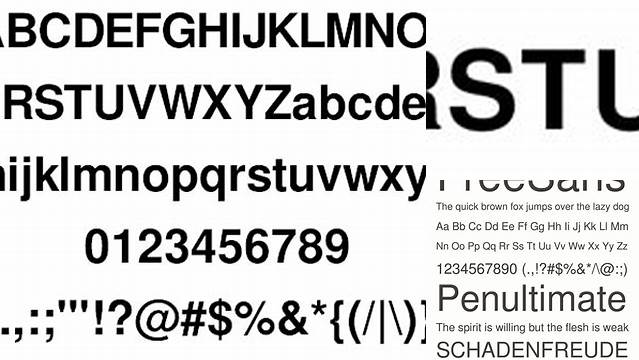
FreeSans Bold Font: Download & Use Guide
Are you looking for a versatile and legible font? Look no further! The FreeSans Bold font is a popular choice for various design projects, offering a clean and modern aesthetic. In this comprehensive guide, we'll walk you through everything you need to know about FreeSans Bold, from downloading it safely to using it effectively in your projects. So, let’s dive in!
What is FreeSans Bold?
FreeSans is a sans-serif typeface designed as part of the GNU FreeFont project. It's intended to be a free and open-source alternative to proprietary fonts like Arial. The Bold variant provides a heavier weight, making it ideal for headlines, titles, and emphasizing important text. Its clear and simple design ensures readability across different media, whether it's printed materials, web pages, or mobile applications. The FreeSans Bold font is characterized by its uniform strokes and unadorned appearance, making it a versatile choice for a wide range of design applications. Its neutral design ensures that it doesn't distract from the content, but rather enhances it. It is particularly useful in technical documentation, user interfaces, and any situation where clarity and legibility are paramount. FreeSans Bold is part of a larger family of fonts that include regular, italic, and bold italic variations, offering designers a complete toolkit for typographic consistency. The font is also designed to support a wide range of characters and symbols, making it suitable for multilingual projects. The GNU FreeFont project aims to provide a comprehensive set of free fonts that meet the needs of a global user base, and FreeSans Bold is a key component of this initiative. By choosing FreeSans Bold, designers and developers can ensure that their projects are not only visually appealing but also compliant with open-source principles.
Why Use FreeSans Bold?
Why should you consider using FreeSans Bold for your next project? There are several compelling reasons. First and foremost, it's free! Being an open-source font, you can use it without worrying about licensing fees, making it an excellent choice for both personal and commercial projects. Secondly, its legibility is outstanding. The clean, sans-serif design ensures that text remains readable even at smaller sizes, making it perfect for body text, captions, and labels. Thirdly, FreeSans Bold offers versatility. It works well in a variety of contexts, from print to digital, and complements a wide range of design styles. Its neutral appearance means it won't clash with other design elements, allowing you to maintain a consistent and professional look. Moreover, FreeSans Bold is part of a larger font family, including regular, italic, and bold italic versions, giving you plenty of options for creating typographic hierarchy. This is particularly useful for documents, websites, and presentations where you need to differentiate between headings, subheadings, and body text. Additionally, FreeSans Bold supports a wide range of characters and symbols, making it suitable for multilingual projects. This is a significant advantage for designers and developers working on international projects, ensuring that their text is displayed correctly across different languages. Finally, by using FreeSans Bold, you are supporting the open-source community. The GNU FreeFont project relies on contributions from developers and designers around the world, and by using their fonts, you are helping to promote the development of free and open-source software. So, if you're looking for a free, legible, and versatile font that supports open-source principles, FreeSans Bold is an excellent choice.
Using FreeSans Bold in Design Projects
Once you've successfully installed FreeSans Bold, it's time to put it to work! This versatile font can enhance a wide range of design projects. In graphic design, FreeSans Bold is excellent for headlines, posters, and logos where you need a strong and legible typeface. Its clean lines and bold weight make it stand out, ensuring that your message is clear and impactful. In web design, FreeSans Bold is a great choice for headings, navigation menus, and call-to-action buttons. Its readability ensures that visitors can easily navigate your website and understand your content. In print design, FreeSans Bold is perfect for brochures, flyers, and business cards. Its versatility means it can be used for both body text and headings, providing a consistent and professional look. When using FreeSans Bold, consider its weight and spacing to optimize readability. Adjusting the letter spacing and line height can significantly improve the overall appearance of your text. Experiment with different font sizes and weights to create visual hierarchy and emphasize important information. Pair FreeSans Bold with other fonts to create contrast and visual interest. A good combination is to use FreeSans Bold for headings and a lighter serif font for body text. This creates a balanced and easy-to-read design. Remember to consider the overall style and tone of your project when using FreeSans Bold. While it's a versatile font, it may not be suitable for every design. For example, it may not be the best choice for projects that require a more elegant or decorative typeface. By experimenting with different applications and styles, you can discover the full potential of FreeSans Bold and create visually appealing and effective designs. Always ensure that your designs are accessible and easy to read for all users. This includes considering factors like color contrast and font size to ensure that your text is legible for people with visual impairments.
Alternatives to FreeSans Bold
While FreeSans Bold is a fantastic font, it's always good to have options. If you're looking for alternatives to FreeSans Bold, there are several excellent choices available. Arial is a widely used sans-serif font that shares many similarities with FreeSans Bold. It's a safe and reliable option for projects where readability is paramount. Helvetica is another popular sans-serif font known for its clean and modern design. It's a versatile choice that works well in a variety of contexts. Open Sans is a humanist sans-serif font designed for readability on screens. It's a great choice for websites and mobile applications. Roboto is a modern sans-serif font developed by Google for Android. It's a versatile font that works well in both print and digital media. Lato is a stylish sans-serif font with a slightly rounded design. It's a great choice for projects that require a more friendly and approachable look. When choosing an alternative to FreeSans Bold, consider the specific requirements of your project. Factors like readability, versatility, and style should all play a role in your decision. Experiment with different fonts to see which one works best for your needs. You can also use font pairing tools to find complementary fonts that work well together. Remember to check the licensing terms of any font you use. While many fonts are free for personal use, some may require a commercial license. By exploring different font options, you can find the perfect typeface to enhance your design projects. Always ensure that your fonts are properly licensed and that you are using them in accordance with the terms of use. This will help you avoid any potential legal issues and ensure that your designs are professional and ethical.
FreeSans Bold is a valuable asset for any designer or content creator. Its legibility, versatility, and open-source nature make it a compelling choice for a wide range of projects. By following this guide, you can safely download and install FreeSans Bold and use it effectively in your designs. So go ahead, give it a try, and see how it can elevate your next project!